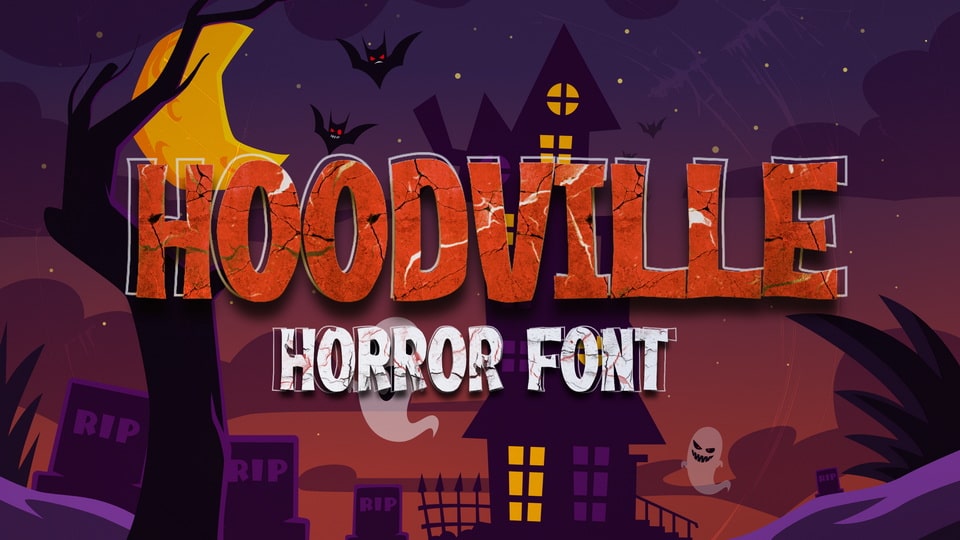
Download Hoodville font, a horror display typeface. The dark and terror, the cold breeze, and screaking tree branches, Hoodville will emphasize the fear of your already frightening event.